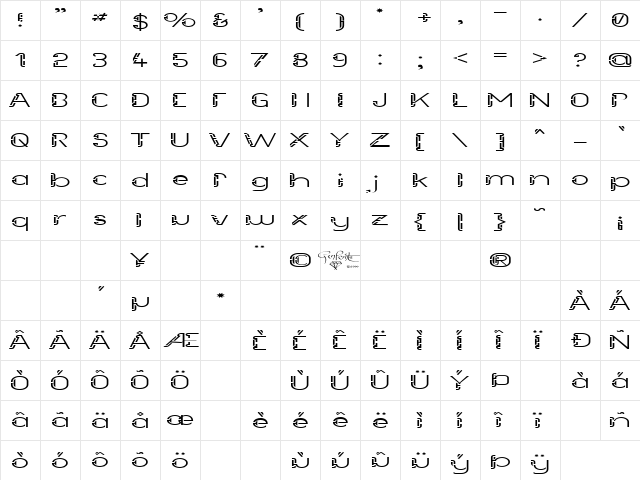
Future Sallow Wide Regular
Design Context for Future Sallow Wide Typeface
Future Sallow Wide has a distinctly futuristic character, with geometric precision and clean angles that feel at home in technology, gaming, and sci-fi contexts.
Pro Tip: Use Future Sallow Wide in combination with a neutral sans for body text. Let it define the brand voice in headlines while keeping reading comfortable elsewhere.